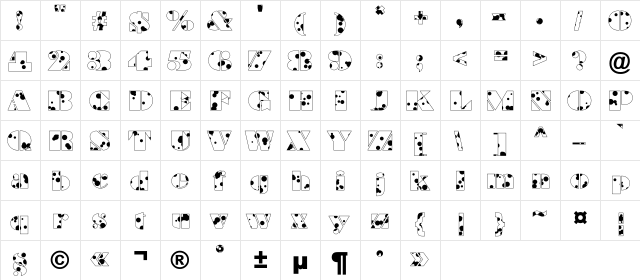
a_BraggaDr Regular
Design Context for a_BraggaDr Typeface
a_BraggaDr is a composed and adaptable typeface that performs quietly and consistently across a wide range of design contexts.